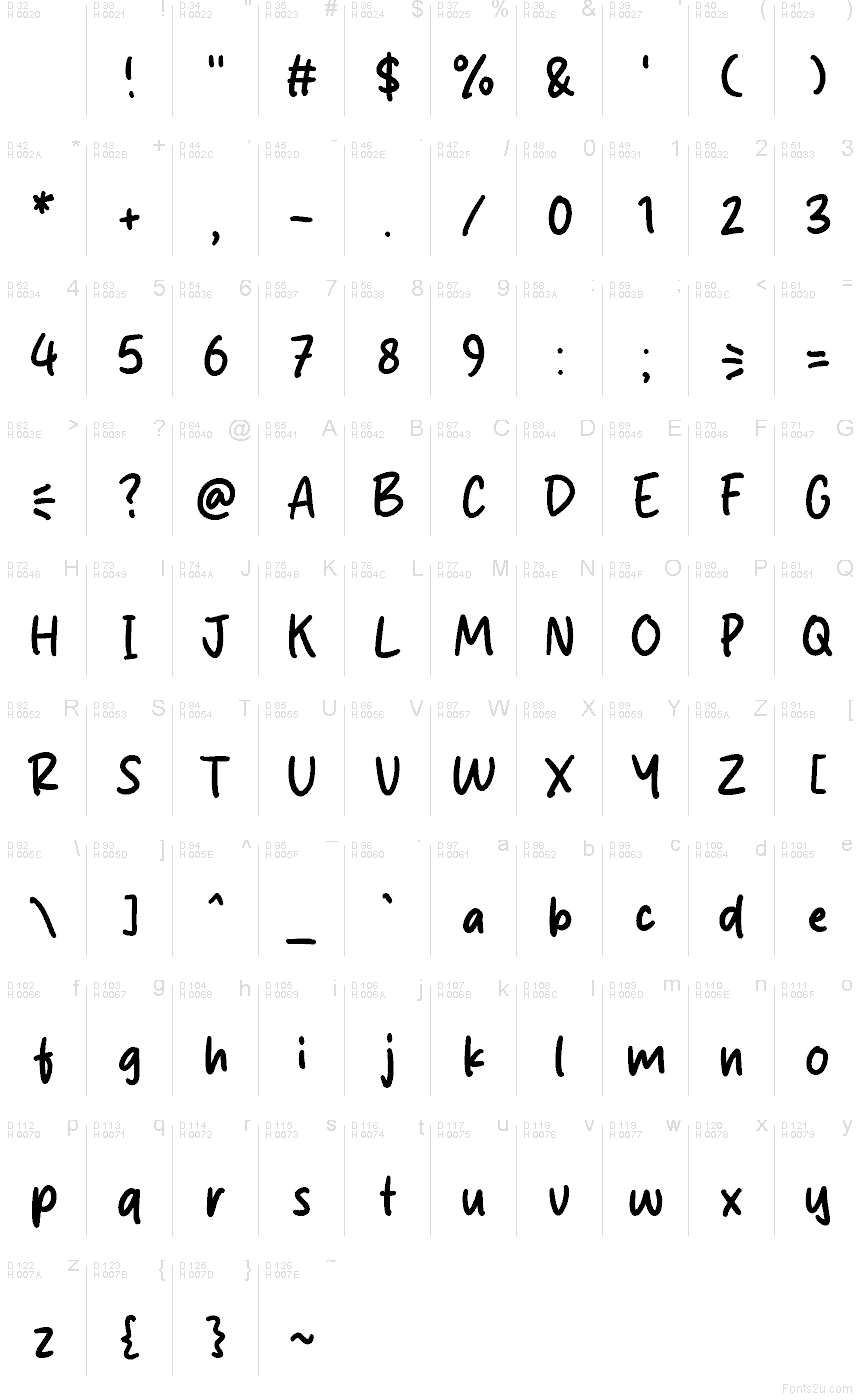
Olive Palm
Olive Palm font by Origin Type is a free handwritten font that finally gives you that relaxed, marker-style script without sacrificing clarity. Its bold, rounded strokes feel like quick, confident notes on a smooth card, while the tight rhythm keeps words compact and easy to read at a glance. There’s a cozy, friendly weight to every curve, so your text feels warm and approachable rather than messy or chaotic.
Using Olive Palm, this free font shines on logo wordmarks, social media graphics, product packaging, quote posters, casual invitations, and kids’ branding. The letters hold together nicely in short phrases, making it especially strong for headlines and bold labels. Pair it with a clean geometric sans serif in smaller text to keep layouts balanced and readable while Olive Palm carries the personality up front.